Web Font Design Technique 05: “Use Mixed Typesetting”
In the case of self-hosting, @font-face is used for reading font. Using the property unicode-range, the character range of the font used can be specified. Therefore, mixed typesetting of multiple typefaces is possible.
There is, however, no function to subset the font data in unicode-range, so care must be taken that all of the font data apart from the character displayed is downloaded. For more detailed specifications, refer to the following resource:
I would like to introduce two utilization examples of this property.
The first example is mixed typesetting of kana (including punctuation marks) and kanji.
The Unicode range of hiragana is 3041 – 3096, katakana is 30A0 – 30FF, and punctuation marks is 3001 and 3002. Therefore, unicode-range is as follows:
unicode-range: U+3041-3096, U+30A0-30FF, U+3001-3002;
With the use of this Unicode range, the following typesetting with an antique atmosphere can be achieved using Hama Mincho for kana, and TP Gothic for kanji:
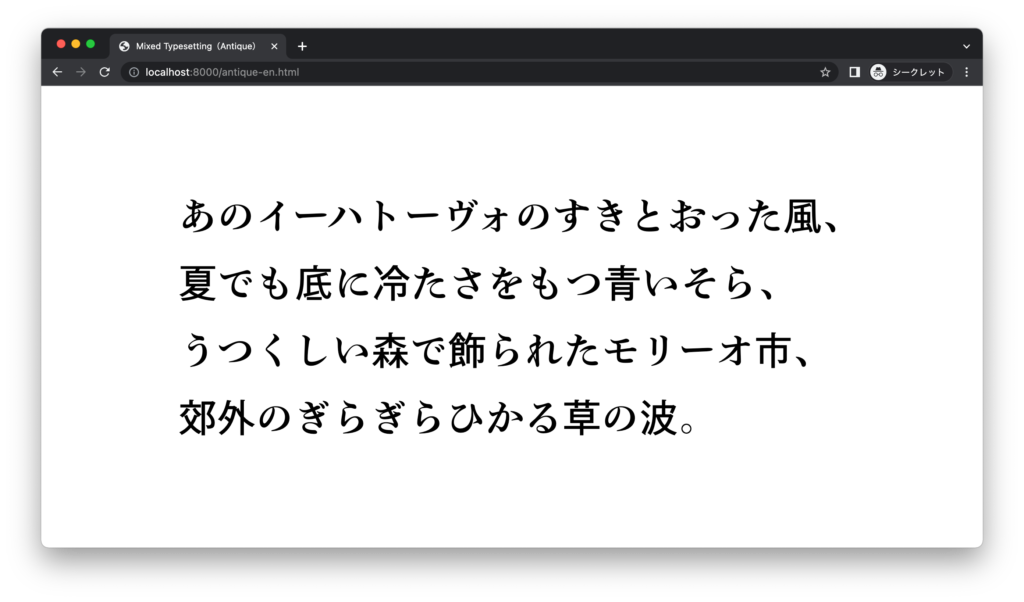
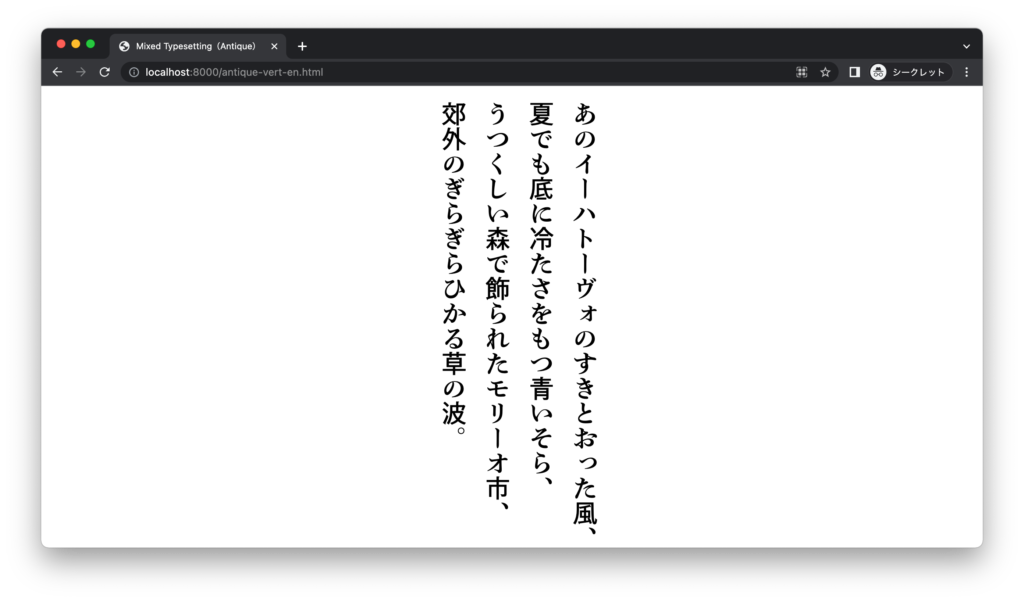
It can also be used when you would like to display only angle brackets thinner in headings.
As the Unicode character position of angle brackets is 300C and 300D, unicode-range is as follows:
unicode-range: U+300C-300D;
これを用いて、AXIS Font ベーシック M の中で、かぎ括弧のみを AXIS Font ベーシック UL にすると、以下のようになります。
(With the use of this Unicode range, the following is the result of using AXIS Font Basic UL for only angle brackets in the heading with AXIS Font Basic M: (‘palt’ described in the previous article is also used)
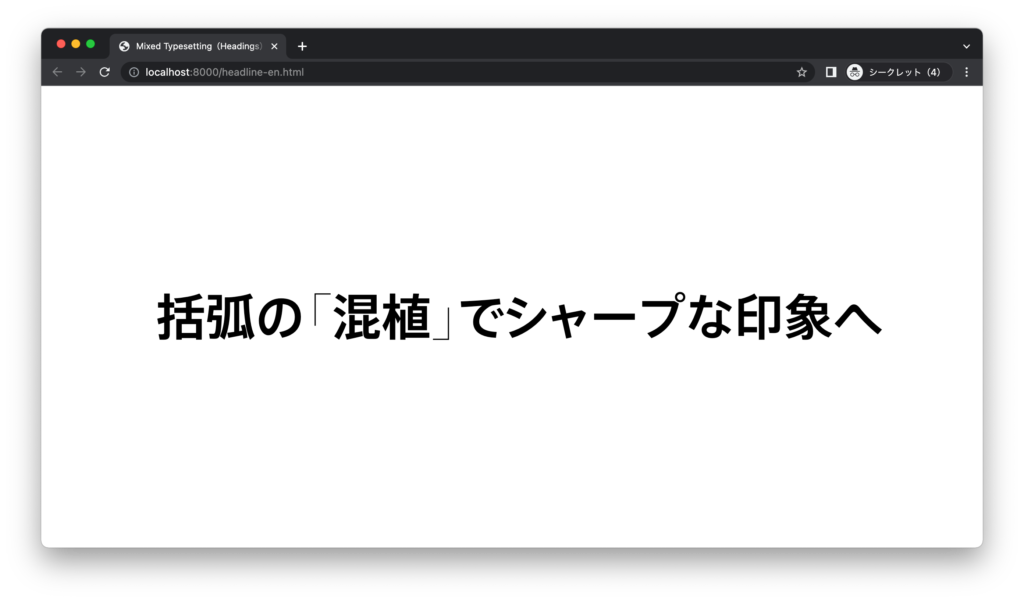
A typesetting comparison with AXIS Font Basic M only is as follows. Mixed typesetting can give a tightened impression as a heading.
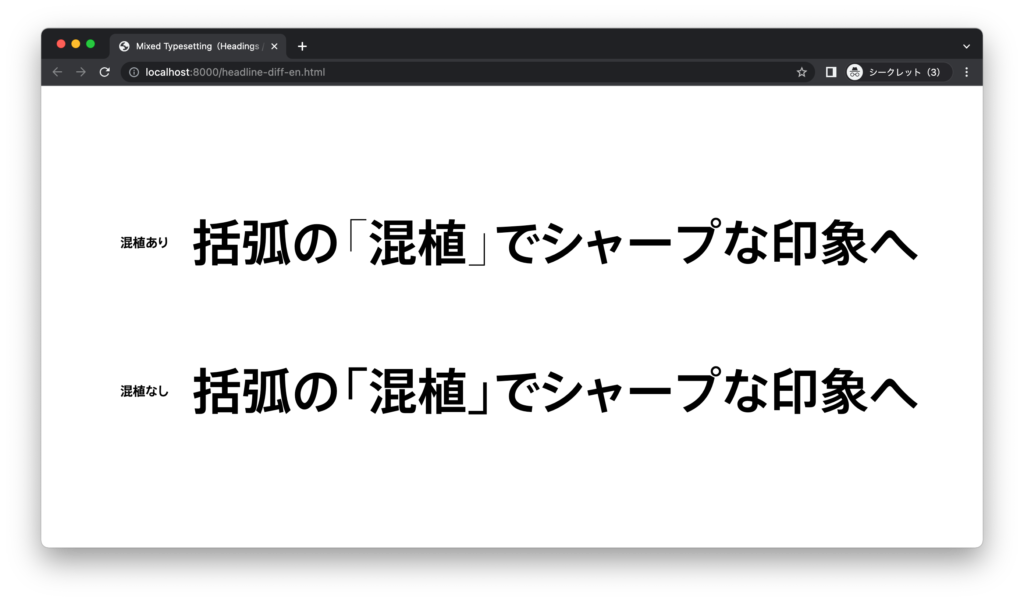
Care must be taken that depending on the combination of fonts, as characters may be displayed in an unintended manner due to the reason of mismatched metrics, etc.